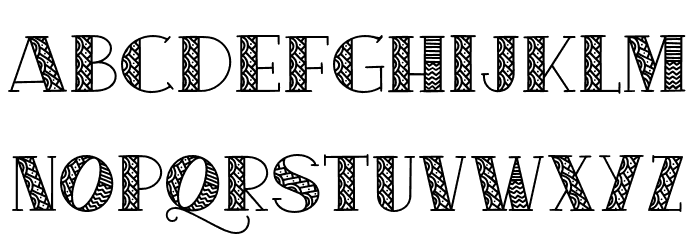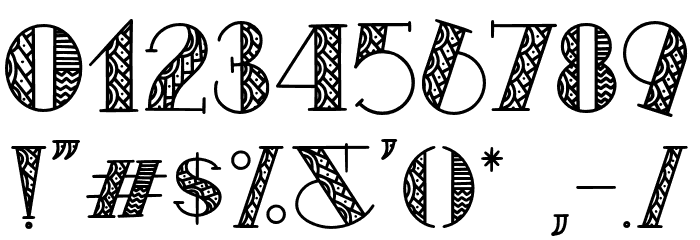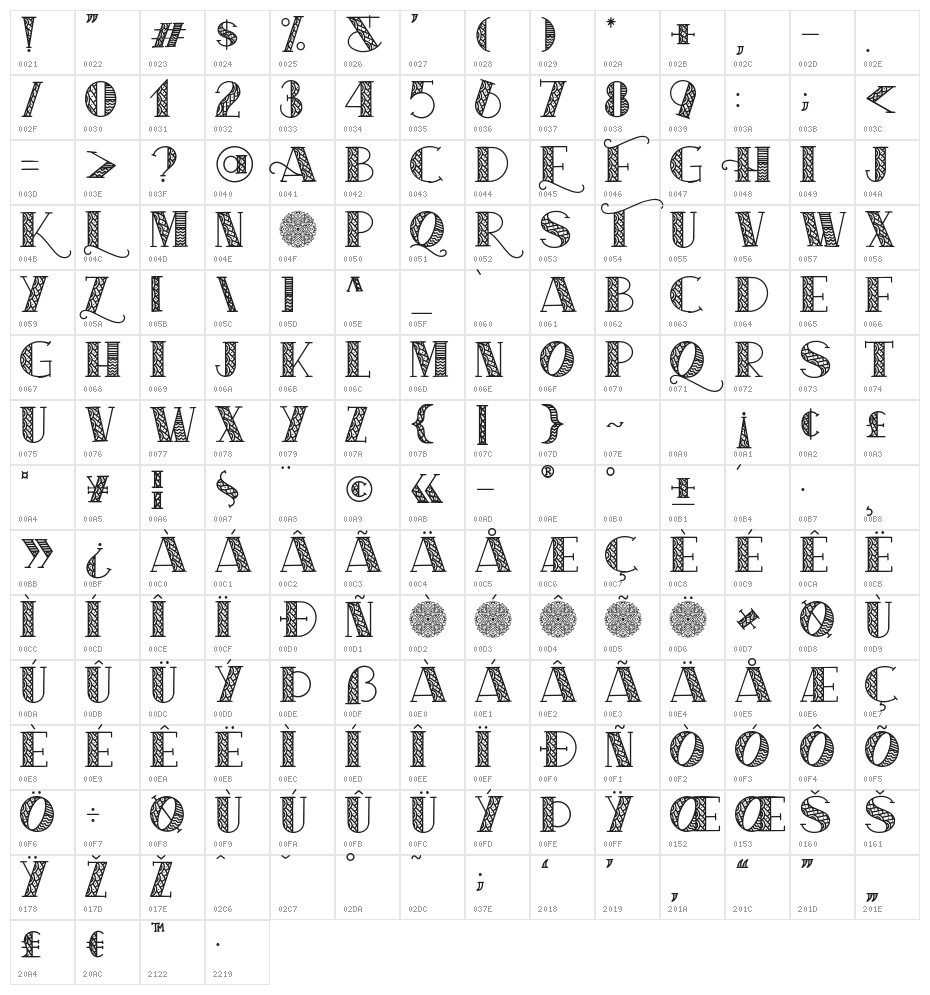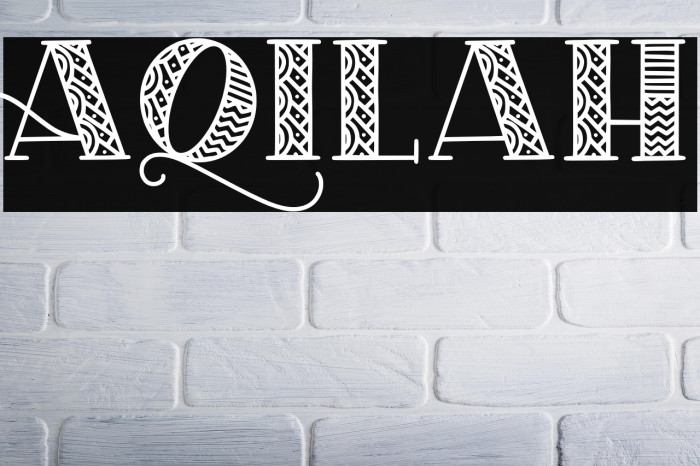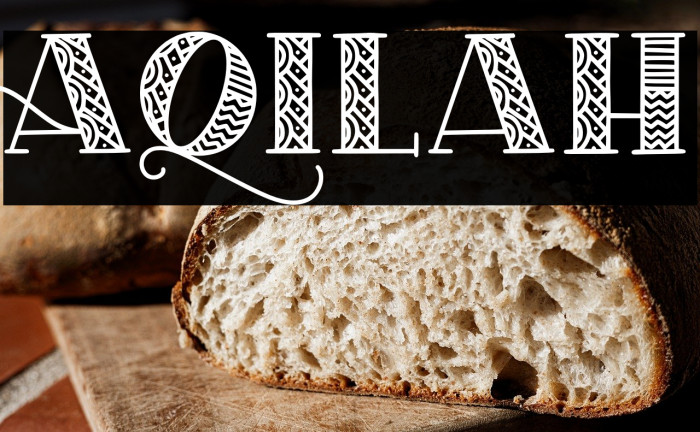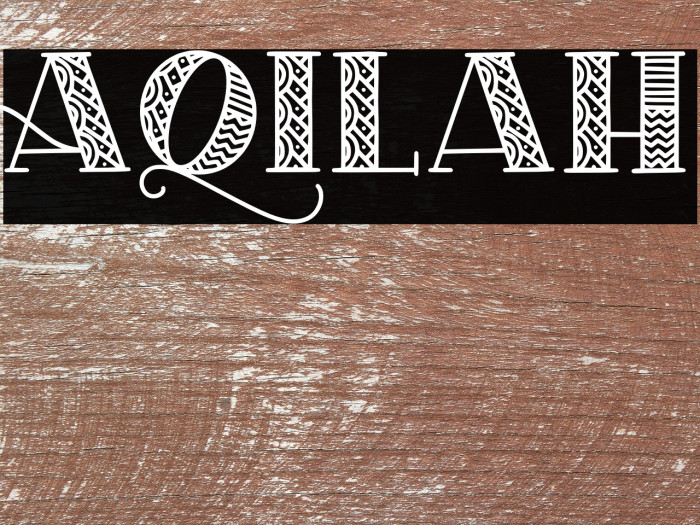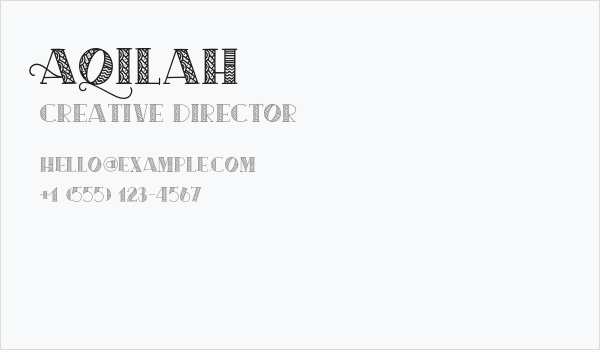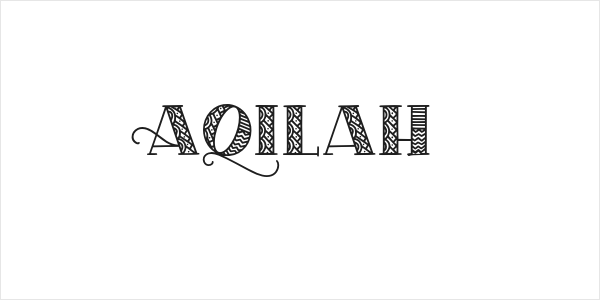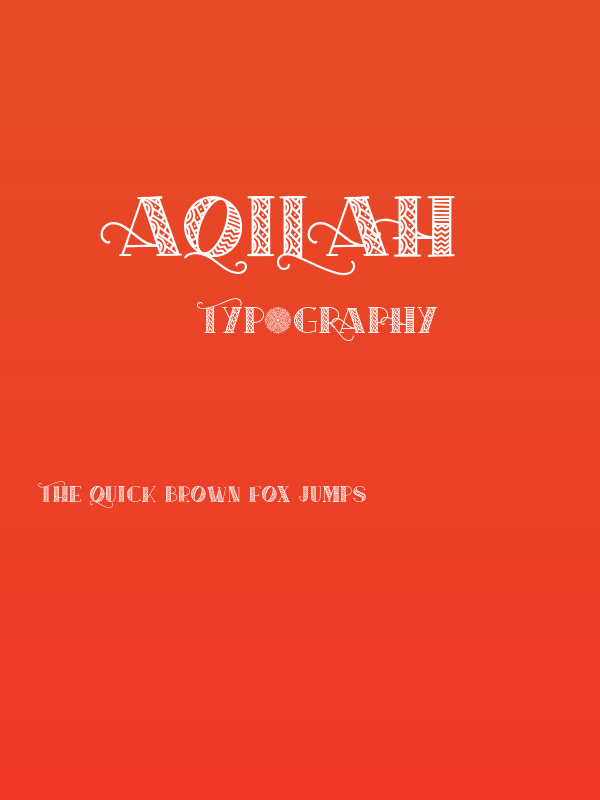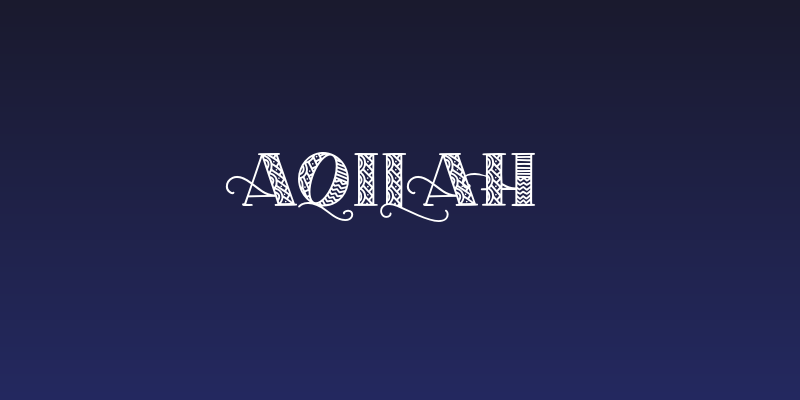
Aqilah Font
This font features an intricate and decorative style, characterized by ornate patterns within each letterform. The uppercase letters are embellished with swirling flourishes and detailed textures, giving them a unique and artistic appearance. The numbers and special characters follow the same decorative theme, with each character showcasing a blend of elegance and complexity. The overall design is reminiscent of vintage or Victorian aesthetics, making it suitable for projects that require a touch of sophistication and flair.
An ornate, decorative font with intricate patterns and flourishes.
- Proposed Projects: Ideal for wedding invitations, vintage-themed posters, book covers, and branding materials that require an elegant and artistic touch.
- Overall Style: Vintage, Decorative
- Use Case: Headlines, Logos, Decorative text